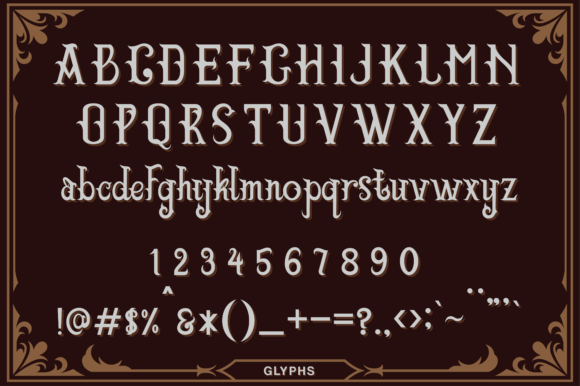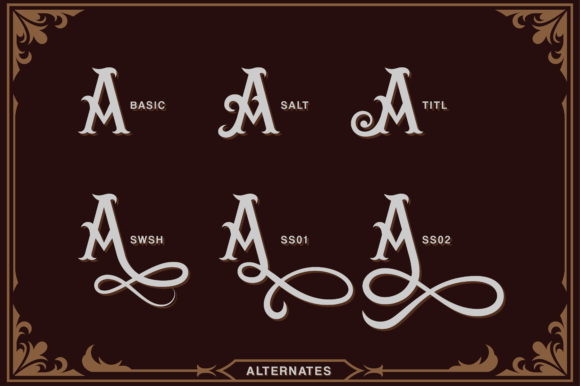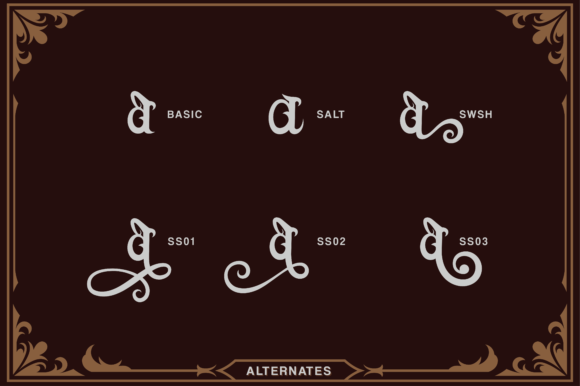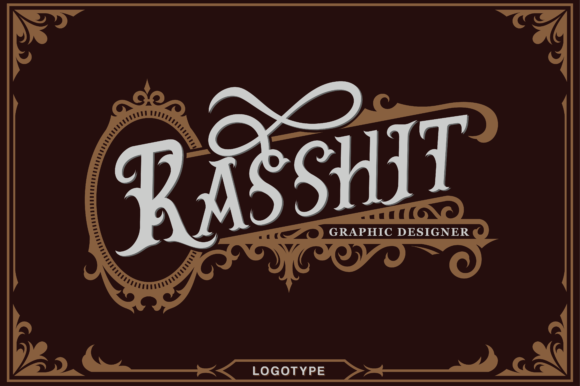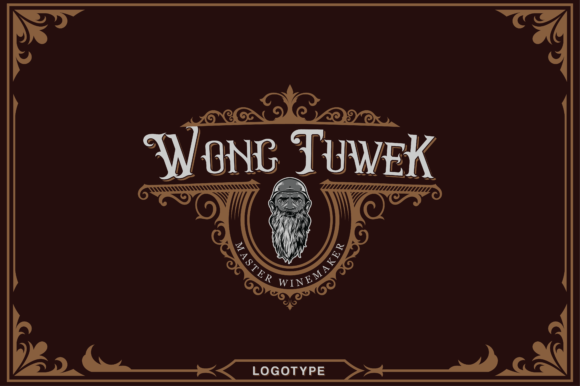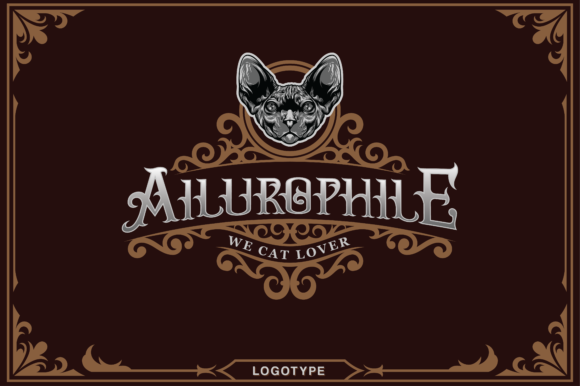
Brave Font: The Ultimate Vintage Display Font for Western-Themed Designs
Are you a designer or crafter looking for a font that can add a touch of nostalgia and coolness to your Western-themed design projects? Look no further than the Brave Font! This stunning and fun vintage display font is designed to make your designs stand out from the crowd and leave a lasting impression.
What is Brave Font?
Brave Font is a carefully crafted vintage display font that embodies the spirit of the Wild West. With its unique and rugged design, it’s perfect for creating eye-catching titles, headings, and signage that evoke a sense of adventure and freedom. Whether you’re working on a branding project, a poster, or a packaging design, Brave Font is sure to add a bold and daring touch.
Key Features of Brave Font
- Western-themed design: Brave Font is specifically designed to capture the essence of the American West, making it perfect for designs that require a touch of ruggedness and nostalgia.
- Vintage feel: The font’s vintage design gives it a unique and timeless look that’s sure to appeal to designers and crafters who love classic typography.
- Stunning and fun: Brave Font is not just a font – it’s an experience. Its bold and playful design is sure to add a smile to your face and inspire your creativity.
- High-quality design: The font is carefully crafted with attention to detail, ensuring that it’s not only visually appealing but also highly legible.
How to Use Brave Font in Your Designs
Using Brave Font in your designs is easy! Here are a few ideas to get you started:
- Western-themed posters: Create eye-catching posters for events, concerts, or festivals with a bold and daring title using Brave Font.
- Branding and logos: Use Brave Font to create a unique and memorable logo for your brand that captures the spirit of the Wild West.
- Packaging design: Add a touch of nostalgia and ruggedness to your packaging design with Brave Font.
- Signage and headlines: Use Brave Font to create bold and attention-grabbing headlines and signage for your business or event.
Why Choose Brave Font?
So why choose Brave Font over other fonts? Here are a few reasons:
- Unique design: Brave Font has a unique and distinctive design that’s sure to set your designs apart from the crowd.
- High-quality craftsmanship: The font is carefully crafted with attention to detail, ensuring that it’s not only visually appealing but also highly legible.
- Versatile: The font is versatile and can be used in a variety of design projects, from posters and branding to packaging and signage.